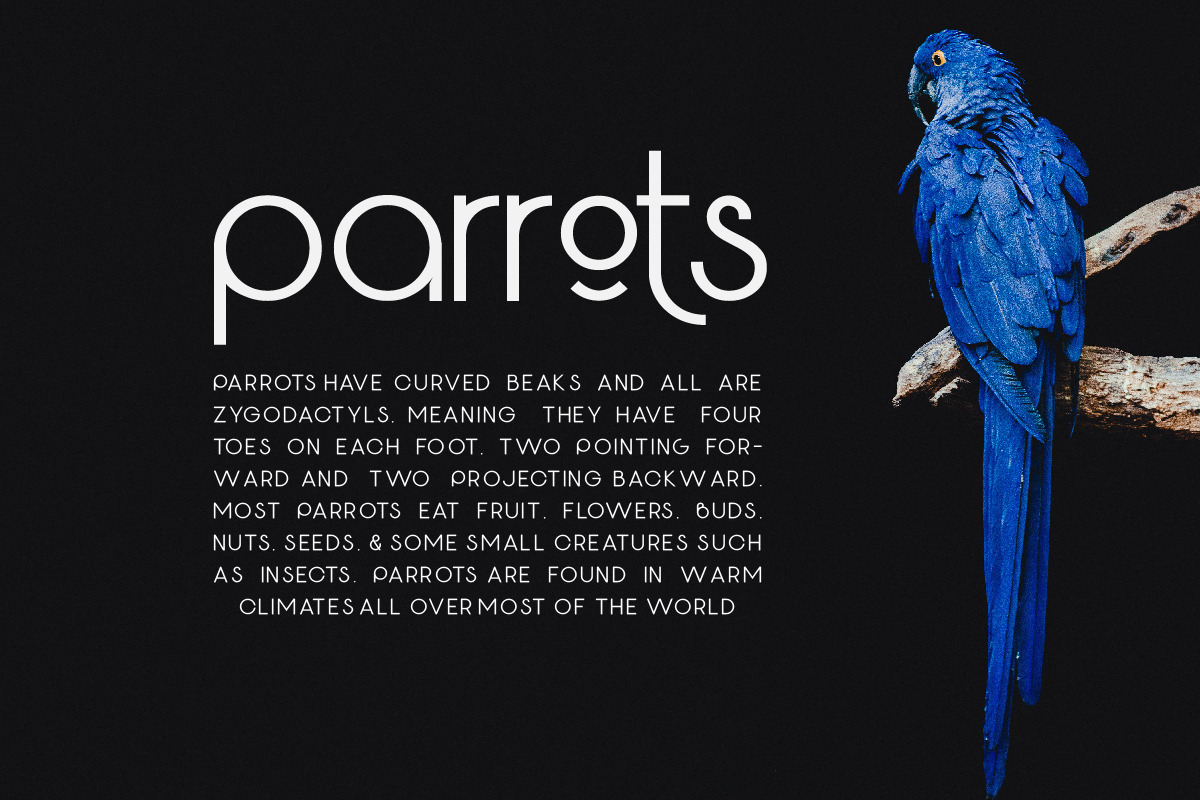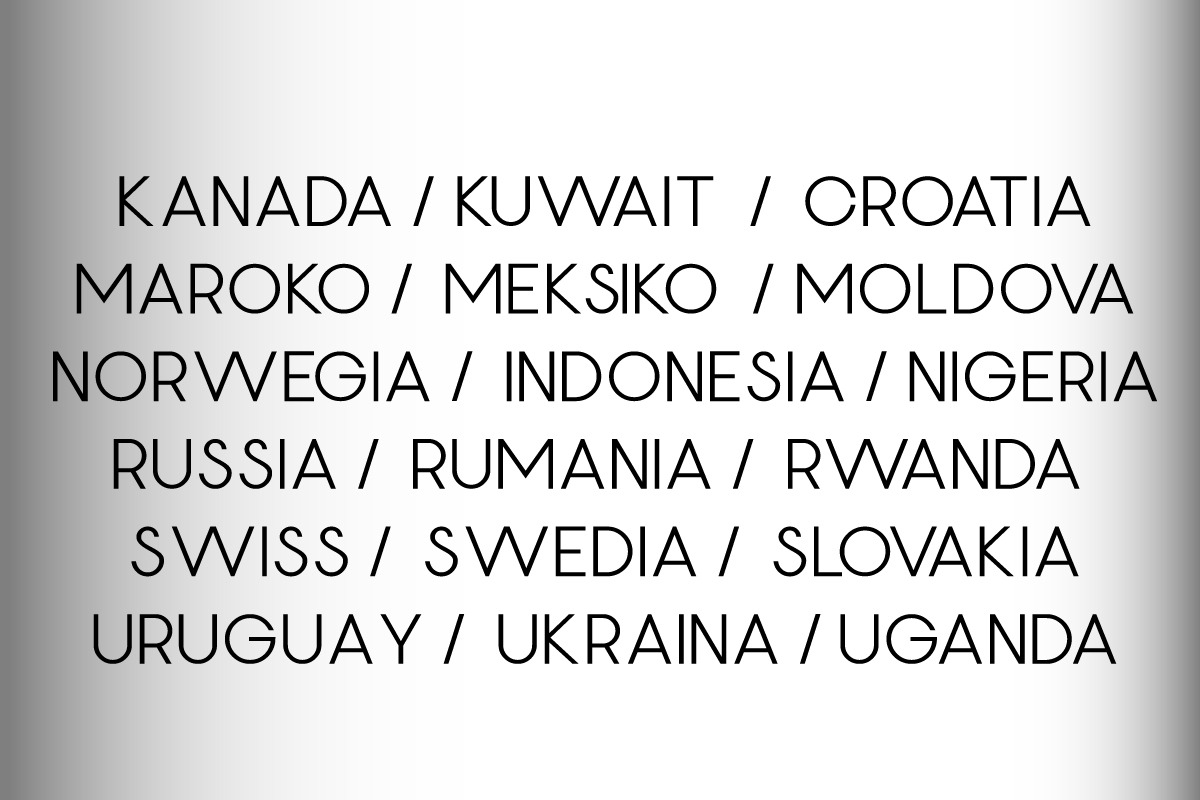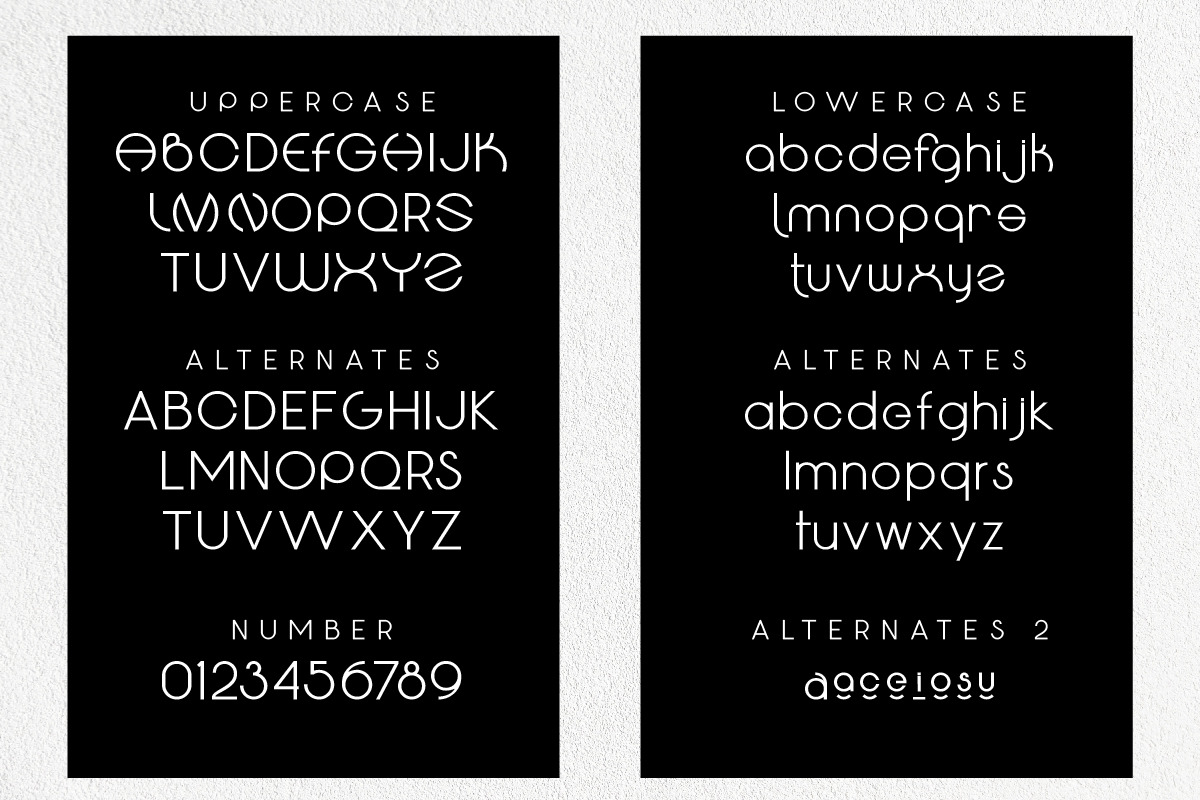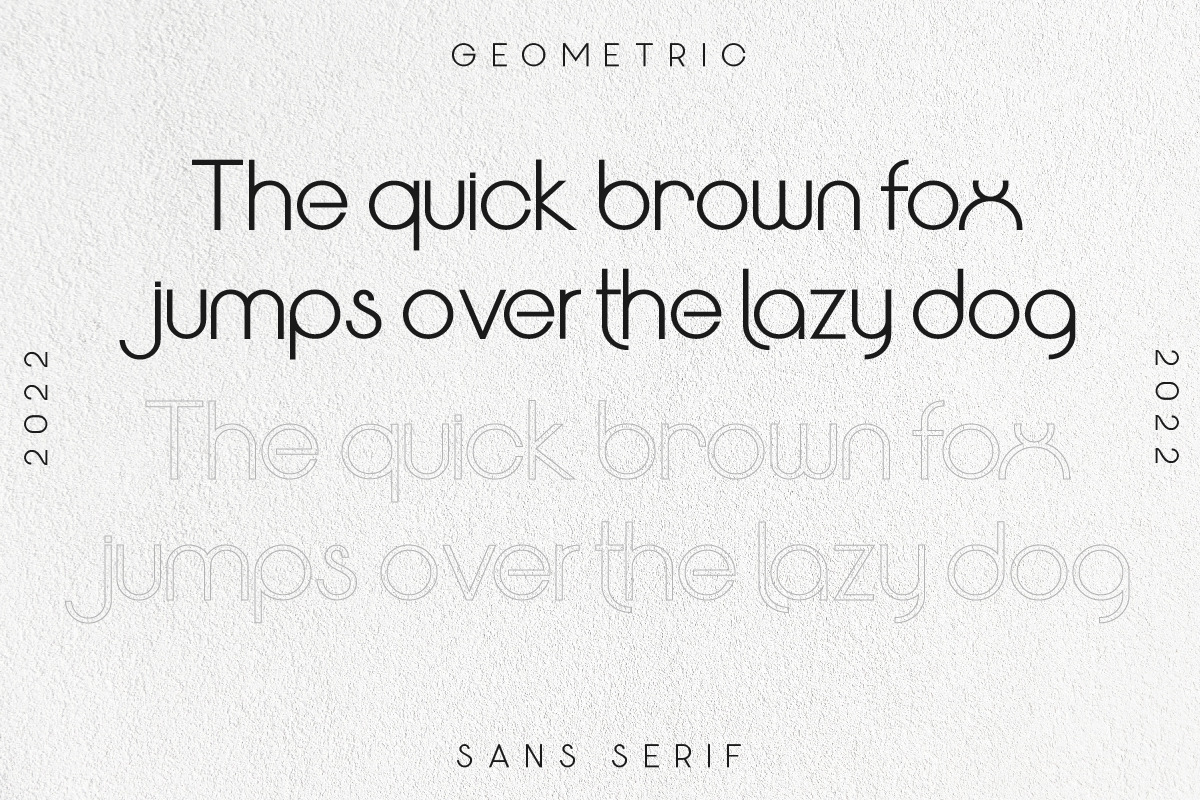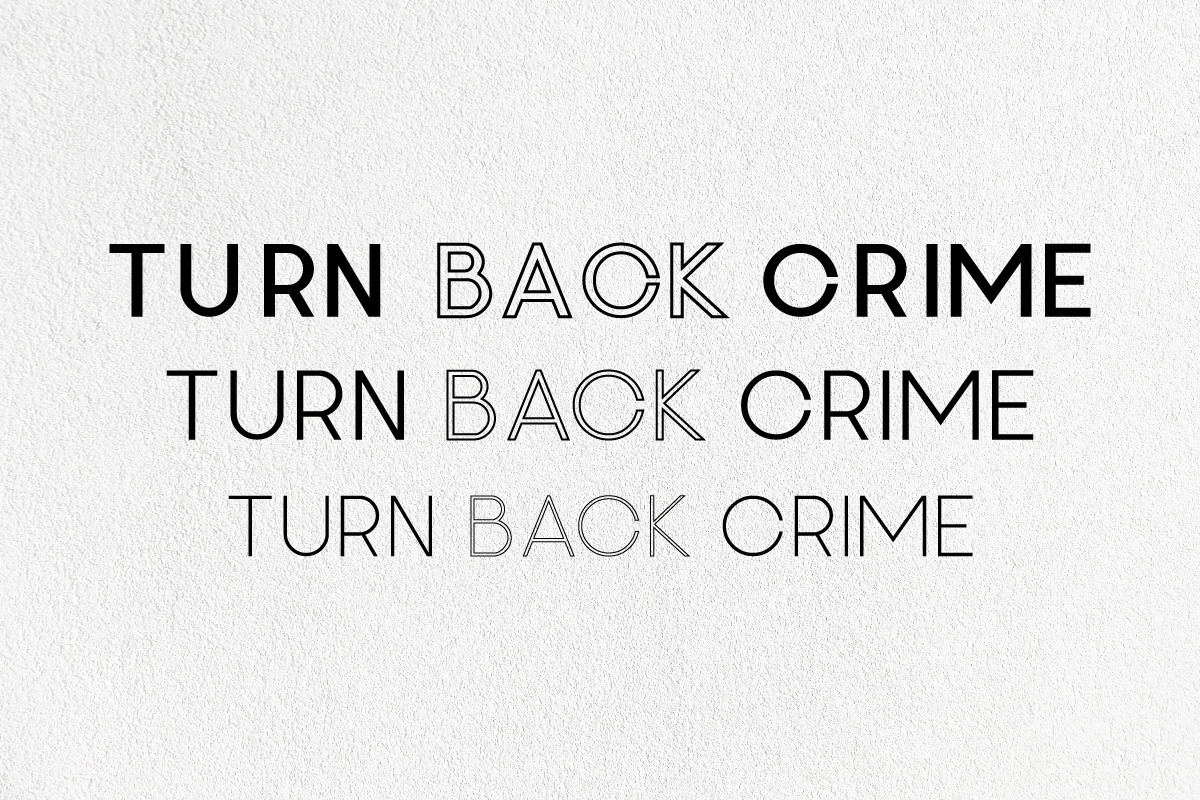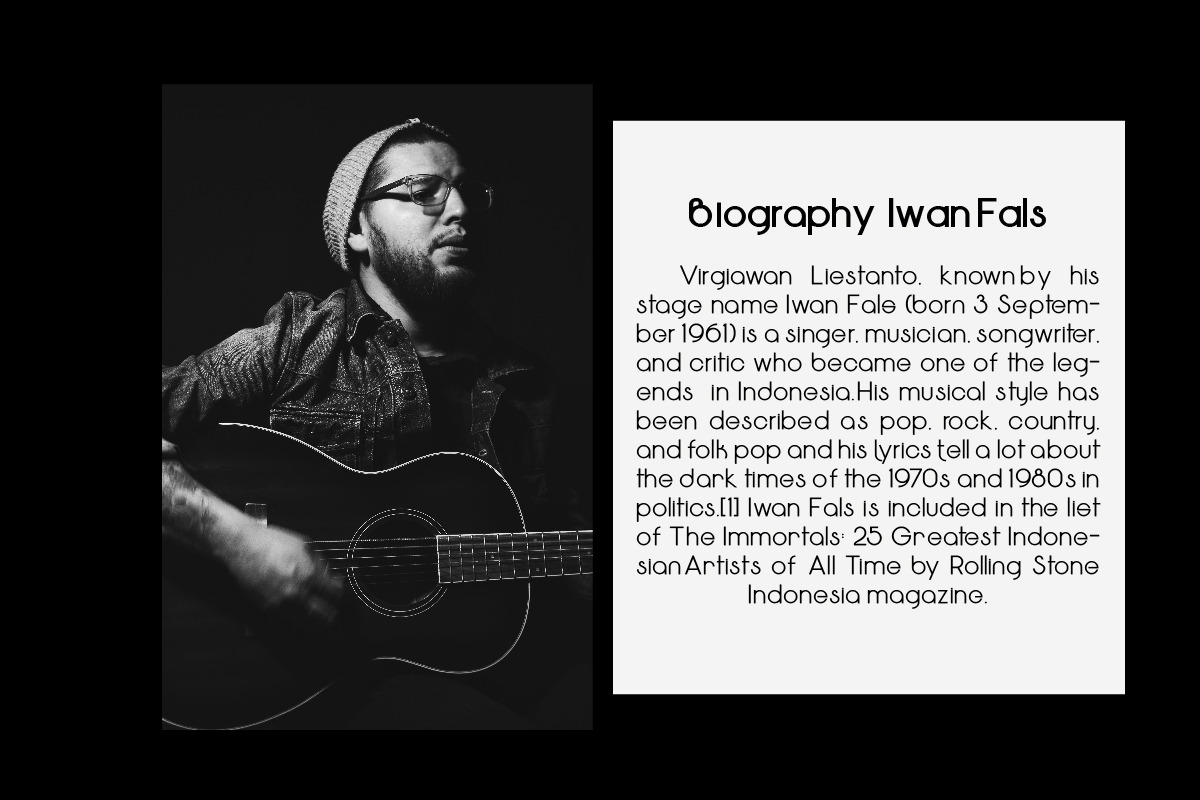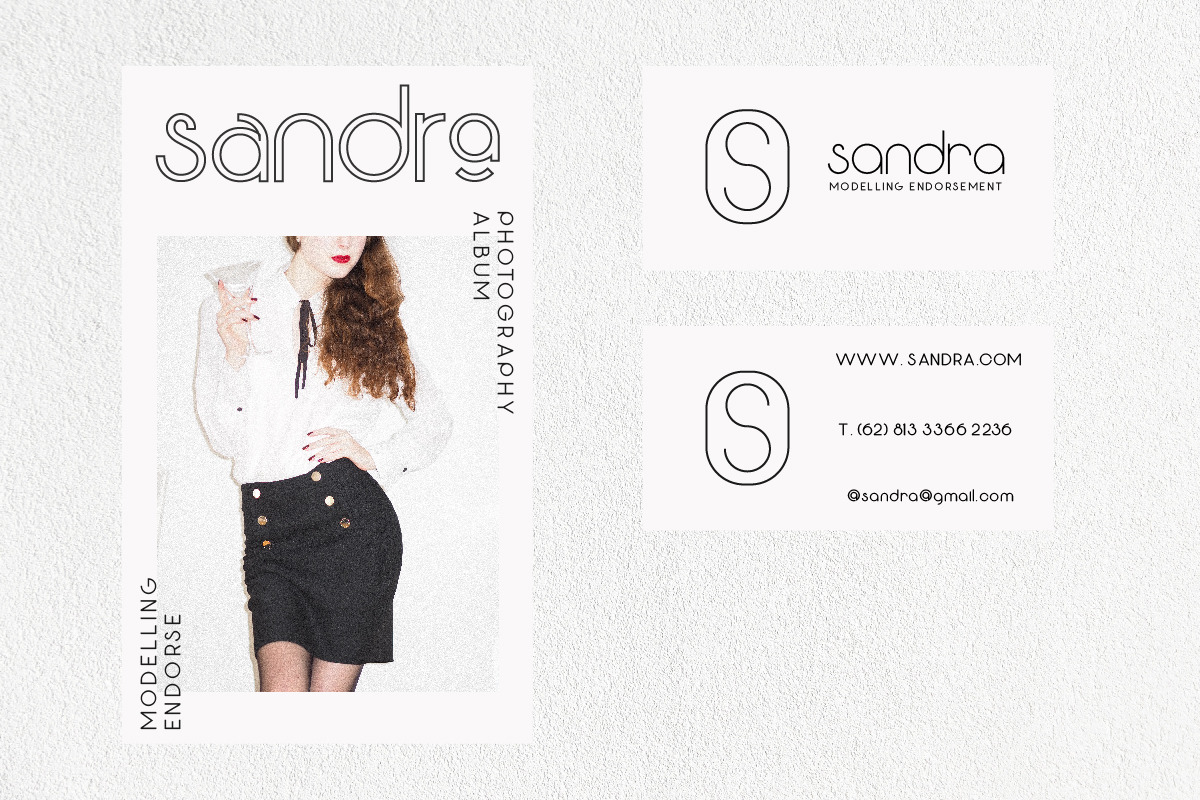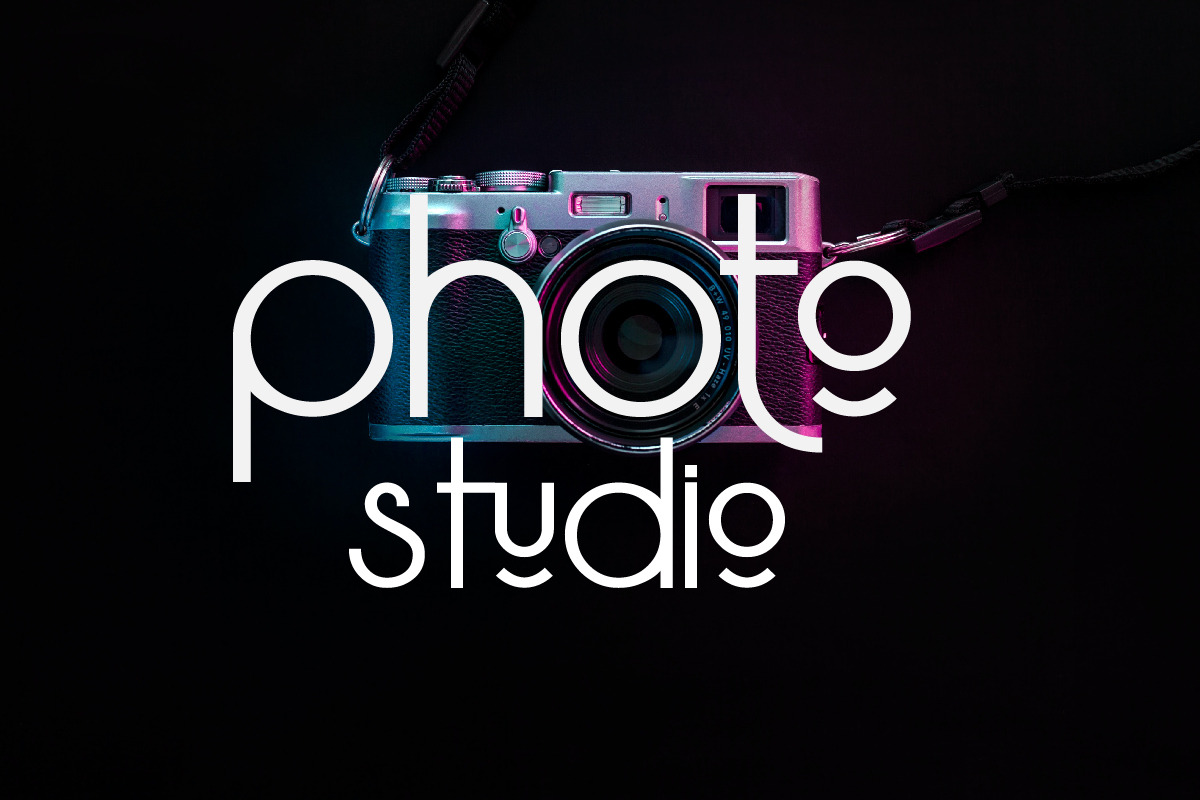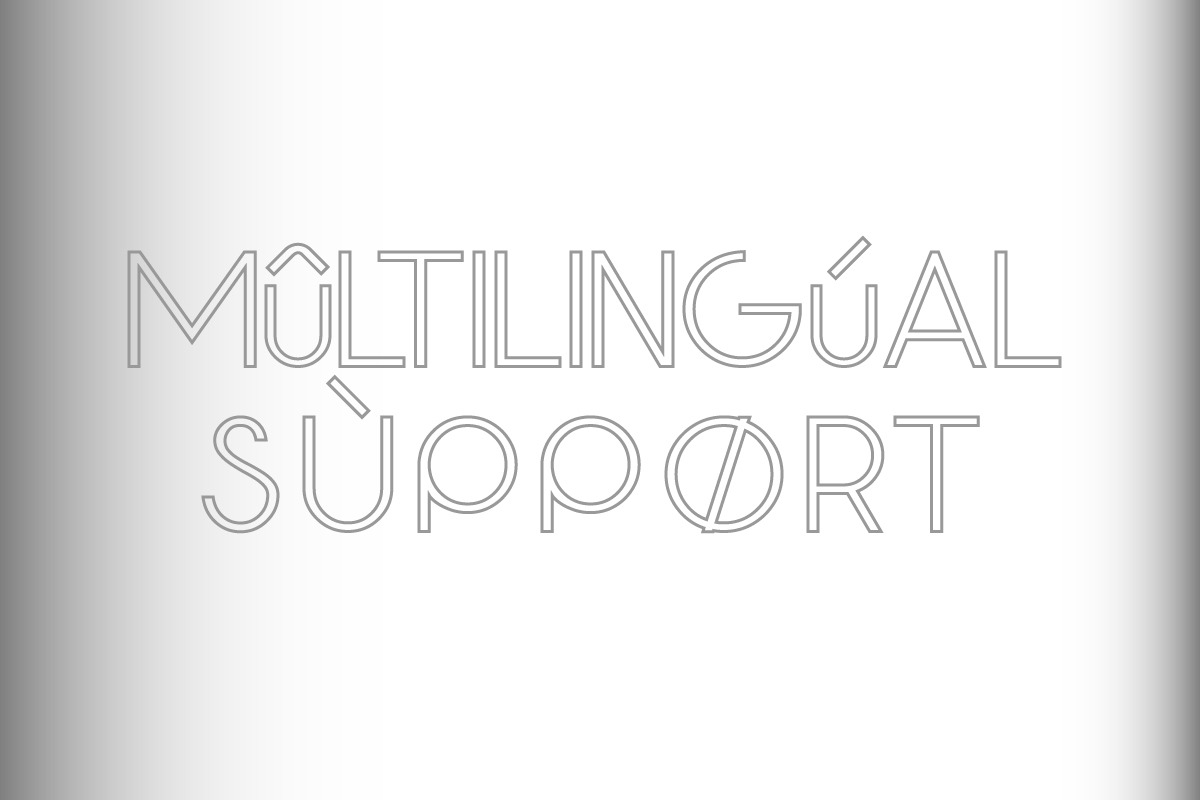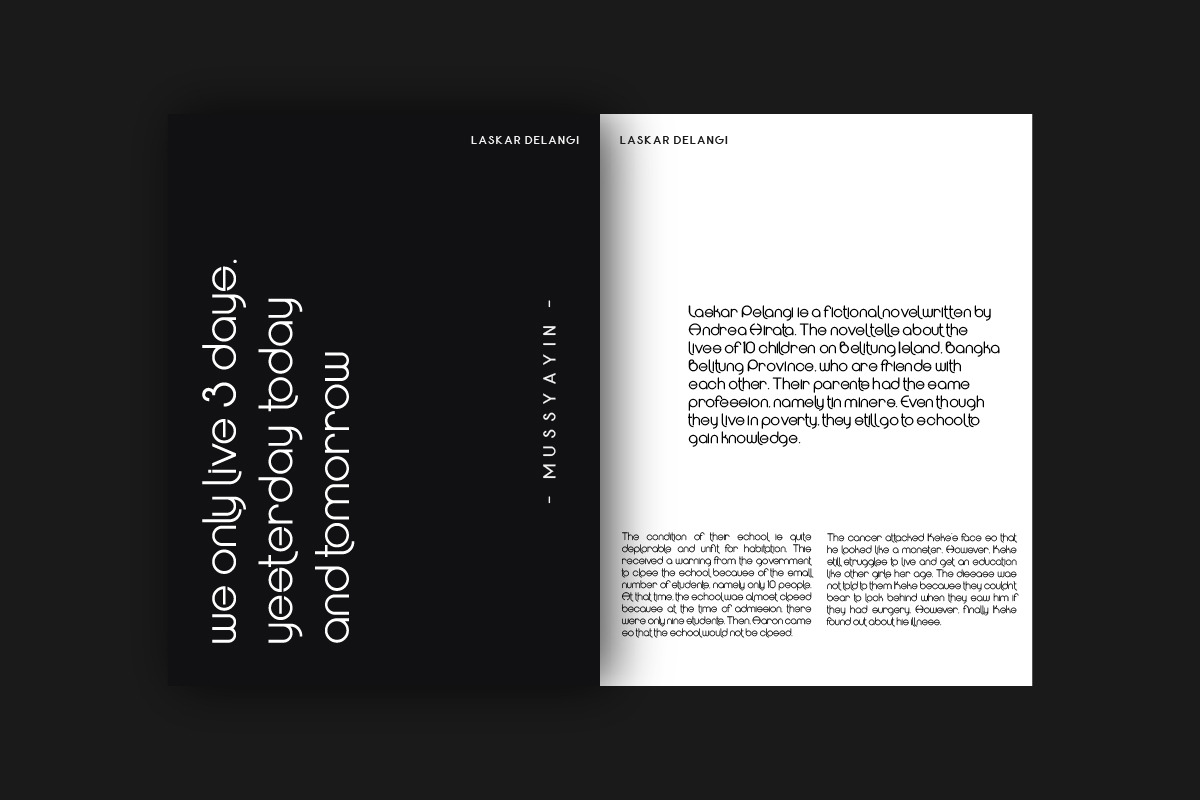
Geotype
Geotype is typeface inspired by circle shapes simple but significant, and defined by its crisp edges and modern touches. It is designed for optimal legibility. An lowercase is unique with some alternates, Geotyface makes a statement without making a scene.
Three weights, four very different personalities.
Geotype Regular
Geotype Bold
Geotype Thin
FEATURES Alternates Typeface / Italics / Numbers & Punctuation / Extensive Language Support
USE Geotype works great in branding, logos, headlines, high fashion. The different weights give you full range to explore a whole host of applications, from tech startup, local events